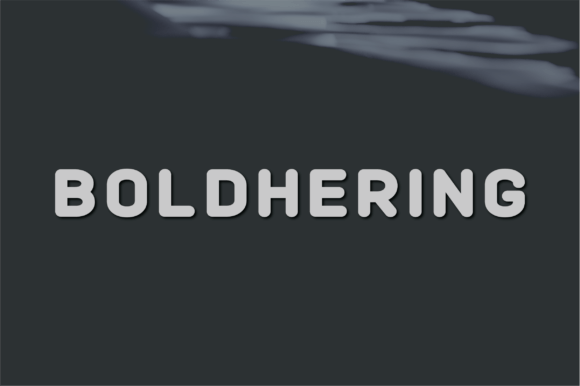
Introducing Boldhering Font: Elevate Your Designs with Modern Elegance
In the world of typography, a font can make or break a design. For designers, crafters, and creative enthusiasts, finding the perfect typeface that embodies both style and versatility is a constant quest. This is where Boldhering Font comes into play, a game-changing sans serif font that is redefining the way we approach design. With its modern, classy aesthetic, Boldhering is not just a font; it’s a statement piece that can elevate any project from ordinary to extraordinary.
The Versatility of Boldhering Font
Boldhering Font is designed to be versatile, making it suitable for a wide range of applications. Whether you’re working on a logo that needs to stand out, planning a wedding and looking for the perfect invitation font, or crafting compelling advertisements, Boldhering has got you covered. Its clean lines and modern appeal ensure that it can seamlessly integrate into various design projects, including:
- Logos: Create memorable and impactful logos that capture the essence of your brand.
- Weddings and Invitations: Add a touch of elegance and sophistication to your wedding invitations and related stationery.
- Quotes and Advertisements: Make your messages stand out with a font that commands attention without being overbearing.
- Print and Magazines: Enhance the readability and aesthetic appeal of your print materials, from magazines to brochures and flyers.
Why Choose Boldhering Font?
So, what makes Boldhering Font a must-have for designers and crafters? Here are a few reasons why Boldhering stands out:
- Modern Aesthetic: Its contemporary design ensures that your projects look up-to-date and trendy.
- Classy Appeal: The elegance of Boldhering adds a classy touch to any design, making it perfect for projects that require a sophisticated look.
- Readability: Despite its bold appearance, the font maintains high readability, making it suitable for both headings and body text.
- Creativity Unleashed: Boldhering can bring your most creative ideas to life, adding a professional and polished finish to your work.
How to Use Boldhering Font Effectively
To make the most out of Boldhering Font, consider the following tips:
- Pair it Wisely: Combine Boldhering with complementary fonts to create visual interest and hierarchy in your designs.
- Experiment with Sizes: Play around with different font sizes to utilize Boldhering’s versatility fully, from large headings to smaller body text.
- Color Matters: Choose colors that align with your brand or project’s theme, and don’t be afraid to experiment with different color schemes to find the perfect match.
Boldhering Font is more than just a typeface; it’s a design companion that can help you achieve your creative goals. Its modern elegance, versatility, and classy appeal make it an invaluable asset for designers and crafters looking to make a statement. Whether you’re working on a commercial project or a personal craft, incorporating Boldhering into your design toolkit can open up new possibilities and take your work to the next level. So, add Boldhering to your collection today and witness how it brings your most ambitious ideas to life.